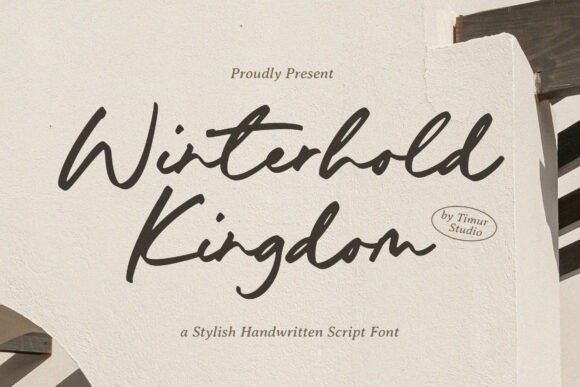
Winterhold Kingdom Font: Elevate Your Designs with Elegance and Whimsy
Are you looking for a font that embodies the perfect blend of sophistication and playfulness? Look no further than the Winterhold Kingdom font. This stylish handwritten script font is designed to bring a touch of elegance and whimsy to your designs, making it ideal for a wide range of creative projects.
What is Winterhold Kingdom Font?
Winterhold Kingdom is a modern script font that boasts fluid strokes and a natural flow, giving it a unique and charming personality. Its elegant and trendy flair makes it perfect for designers who want to add a touch of sophistication to their work. Whether you’re creating branding materials, invitations, social media graphics, or any other type of design, Winterhold Kingdom is sure to impress.
Key Features of Winterhold Kingdom Font
• Handwritten Script Style: Winterhold Kingdom features a beautiful handwritten script style that adds a personal touch to your designs.
• Elegant and Whimsical: The font’s fluid strokes and natural flow give it a unique blend of elegance and whimsy.
• Modern Calligraphy: Winterhold Kingdom captures the charm of modern calligraphy with a trendy flair.
• Versatile: The font is perfect for a wide range of creative projects, including branding, invitations, social media graphics, and more.
Uses of Winterhold Kingdom Font
Winterhold Kingdom is a versatile font that can be used for a variety of design projects. Here are some ideas to get you started:
• Branding: Use Winterhold Kingdom to create elegant and sophisticated branding materials, such as logos, business cards, and letterheads.
• Invitations: Add a touch of whimsy and elegance to your invitations, whether it’s for a wedding, birthday party, or baby shower.
• Social Media Graphics: Use Winterhold Kingdom to create eye-catching social media graphics, such as quotes, promotions, and announcements.
• Packaging: Add a touch of elegance to your product packaging with Winterhold Kingdom.
Benefits of Using Winterhold Kingdom Font
There are many benefits to using Winterhold Kingdom in your designs. Here are a few:
• Unique and Memorable: Winterhold Kingdom is a unique and memorable font that will help your designs stand out from the crowd.
• Elegant and Sophisticated: The font’s elegant and sophisticated style makes it perfect for designs that require a touch of luxury.
• Easy to Read: Despite its elegant style, Winterhold Kingdom is easy to read, making it perfect for body text and headlines.
• Customizable: Winterhold Kingdom can be customized to fit your design needs, making it a versatile font for a wide range of projects.
Tips for Using Winterhold Kingdom Font
Here are some tips for using Winterhold Kingdom in your designs:
• Use it Sparingly: Winterhold Kingdom is a bold font, so use it sparingly to avoid overwhelming your design.
• Pair it with Other Fonts: Winterhold Kingdom pairs well with other fonts, such as sans-serif fonts, to create a unique and interesting contrast.
• Experiment with Colors: Winterhold Kingdom looks great in a variety of colors, so experiment with different colors to find the one that works best for your design.
• Pay Attention to Kerning: Pay attention to kerning, or the space between letters, to ensure that your text is easy to read and visually appealing.
Winterhold Kingdom font is a stylish and elegant handwritten script font that is perfect for designers who want to add a touch of sophistication and whimsy to their work. With its fluid strokes and natural flow, Winterhold Kingdom is ideal for a wide range of creative projects, from branding and invitations to social media graphics and packaging. Whether you’re a professional designer or just starting out, Winterhold Kingdom is a great addition to your font collection.